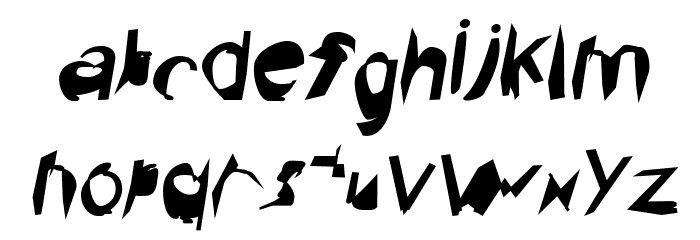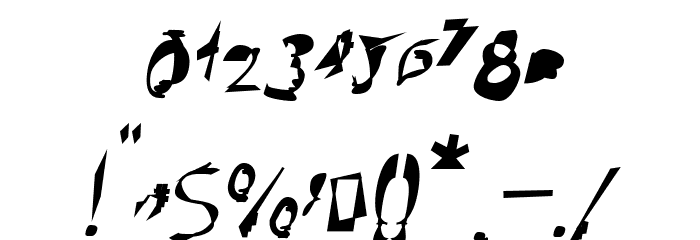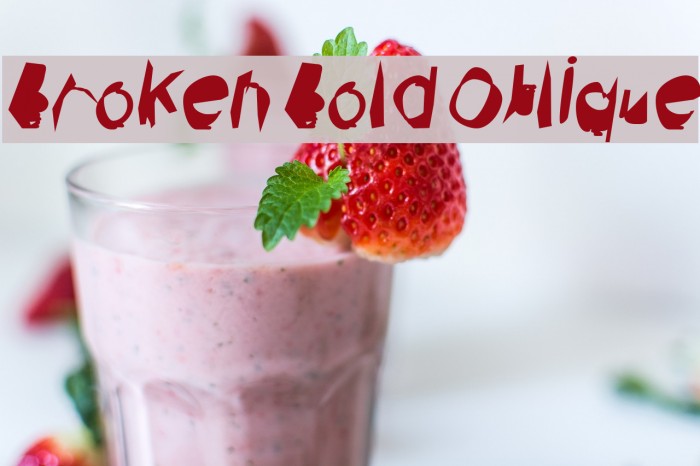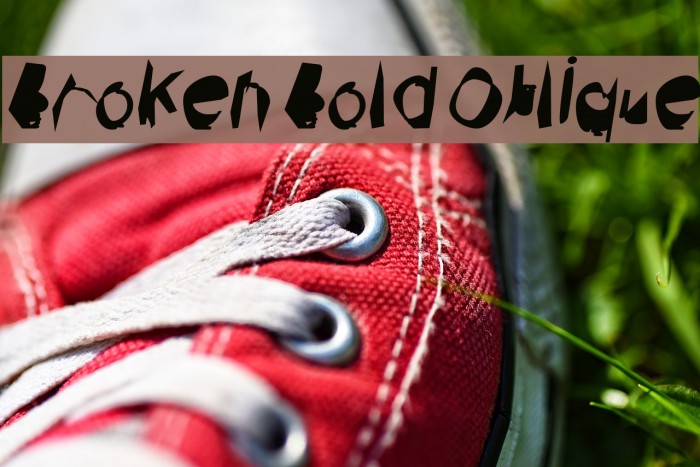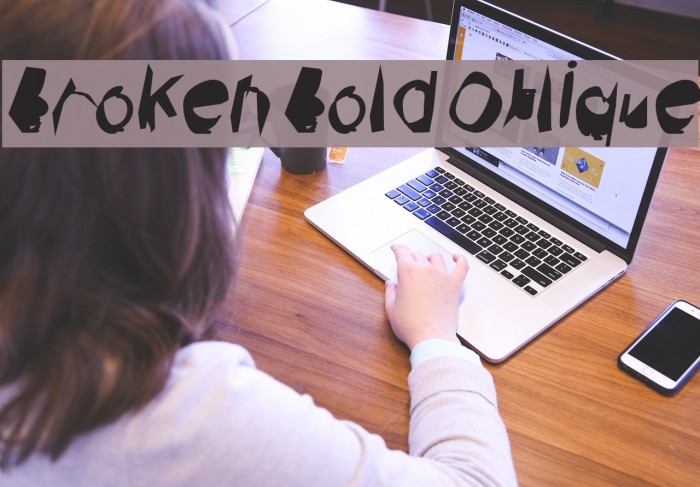
Broken Bold Oblique Font
This font features a bold and oblique style with a highly irregular and fragmented appearance. The characters are designed with sharp angles and broken lines, giving them a dynamic and chaotic look. The uppercase and lowercase letters maintain a consistent style, with each character appearing as if it has been shattered or cut into pieces. The numbers and special characters follow the same design principles, adding to the overall edgy and unconventional aesthetic. This font is ideal for projects that require a strong visual impact and a sense of movement or disruption.
A bold, oblique font with a fragmented and dynamic design.
- Proposed Projects: Ideal for album covers, posters, and edgy branding projects that require a bold statement.
- Overall Style: Modern, Chaotic